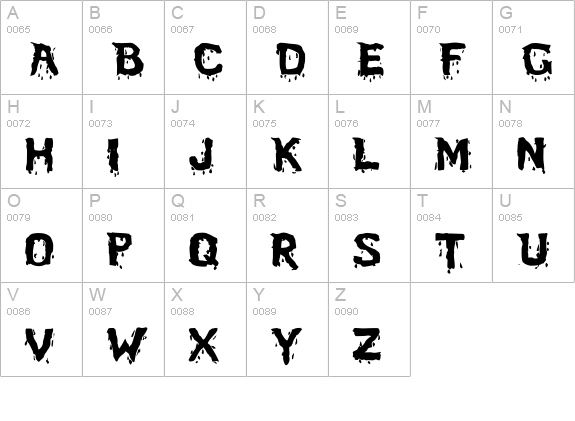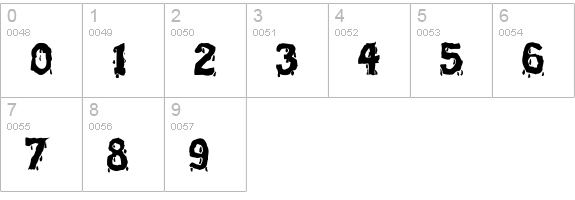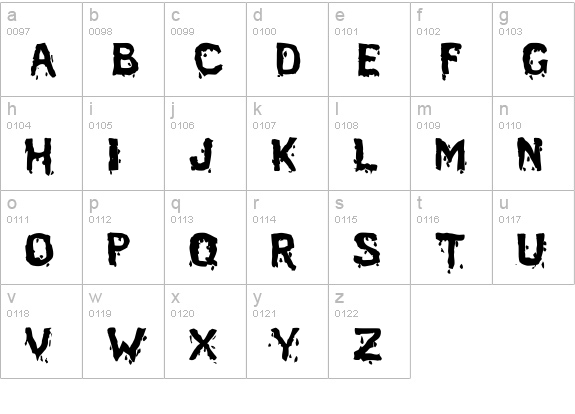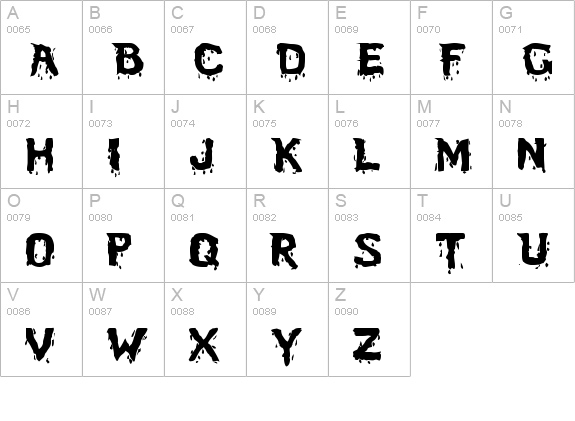
BloodFeast Font Details
Introducing BloodFeast font, a striking and bold typeface designed to make a powerful statement. With its sharp edges and unique design, BloodFeast exudes a sense of strength and intensity that is perfect for grabbing attention in any project. This font is ideal for headlines, posters, logos, and more, adding a touch of edginess to your designs. Best of all, BloodFeast is available for free download at FontsMarket.com. That's right, you can add this eye-catching font to your collection without spending a dime. So why wait? Download BloodFeast today and unleash its powerful impact on your next project.